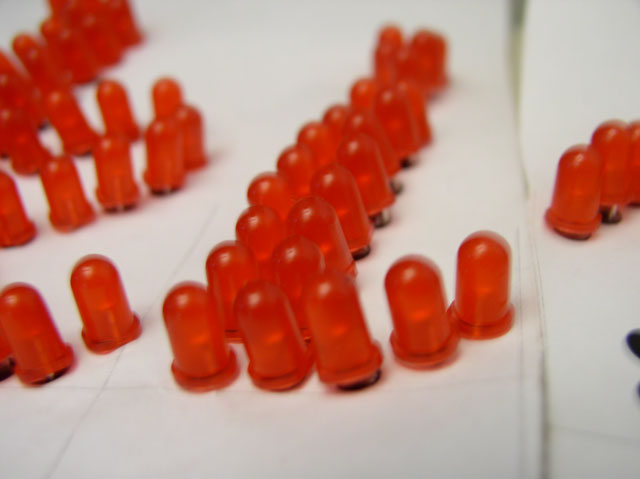
![]() day 1 : day 2 : day 3 : day 4   final result LED-group : Biggest group : Face-the-light group ![]() Good Point – the shining type Our aim was to create a type by using concrete lightsources. Matches and LEDs seemed to be smallest available ones. On the other hand we wanted to create a more organic than technical type, so we skipped all those clichee-thoughts of a grid. It was clear that this idea would face some technical problems, but we decided to solve those. Even though this project was made to create shining LEDs, this type can be applied to any other roundish objects. We wanted to make the result look playfull and happy. Despite of the modern technology and all fancy softwares, there still seems to be a strong feeling of typographic traditions in our Good Point.
Without darkness there's no light. Darkness forms an excellent contrast for the light. That is also the reason why our group doesn't find darkness a depressive element. The more darkness, the better our LED-typeface Good Point is going to shine! And finally, after five days hard work, it IS shining. And not only in itself: it also spreads the 'shine' and happiness. Or how could you be sad when you see a blinking message on your friends sweater? ps. Not as shiny as the pictures, but at least the font is shining (from your screen) in this PDF. ![]() ![]()
Roel Wouters -- Sunday, December 14 2003, 12:56 pm Kisu Kisu kisu, check: http://www.pipslab.nl donald beekman -- Thursday, December 18 2003, 01:32 pm hi everyone GOODPOINT: of coarse it had to be LEDs, and only LEDS! i am impressed how elegant the font looks, despite its limitations (dots). really excellent work! i would love to see some Caps too! BENDOVER: sehr sehr cool, i like how the letters bend around the building and change shape when projected! interesting thickness changes within the characters. Very curious how the caps would look too! RENESANS: very nice font indeed, subtle. especially considering the struggle you have had with the concept. it is a beautiful font, i can easily see it used in airport sliding doors. hope you will keep on designing fonts! good luck! donald beekman - [DBXL] http://www.dbxl.nl Ste. -- Monday, January 5 2004, 11:49 am Great! I wanna a T-shirt with Koira dots! Anamarķa Castillo -- Friday, January 16 2004, 04:01 am Very intresting proyect!! For me, living in a tropical country it comes as a comlpetely unknown field!!! How can it be so dark so long!! I have to say congratulations on the results, its fun, creative and I want a t- shirt too!!! (keep shining Marika!!) ![]()